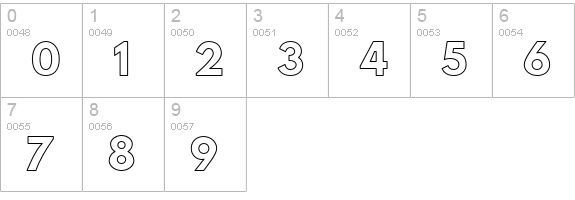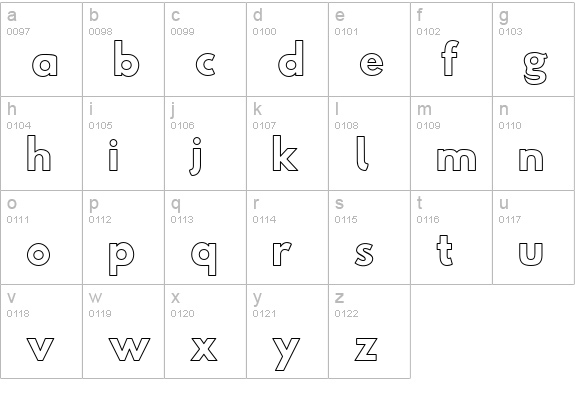
Poland Can Into Glass Makings font is a stunning display typeface that exudes elegance and sophistication. It is inspired by the intricate beauty of glass artistry, capturing its delicate and captivating essence. The font features carefully crafted letterforms with smooth curves and intricate details that resemble the artistry of glassblowing. With its unique charm and timeless appeal, Poland Can Into Glass Makings font is perfect for a wide range of design projects. Whether you're creating eye-catching logos, stylish headlines, or elegant invitations, this font will effortlessly elevate your designs to a whole new level. One of the best things about Poland Can Into Glass Makings font is that it is freely available to download at FontsMarket.com. This means that you can easily access and incorporate this stunning font into your design projects without any hassle. The font is compatible with various design software and can be used on both personal and commercial projects. The versatility of Poland Can Into Glass Makings font makes it a must-have for designers looking to add a touch of sophistication and elegance to their work. Its clean lines and intricate details make it a true work of art, allowing you to create stunning and memorable designs that will captivate your audience. So why wait? Download Poland Can Into Glass Makings font today from FontsMarket.com and unleash your creativity with this incredible free font. Elevate your designs, make a statement, and leave a lasting impression with the breathtaking beauty of Poland Can Into Glass Makings font.